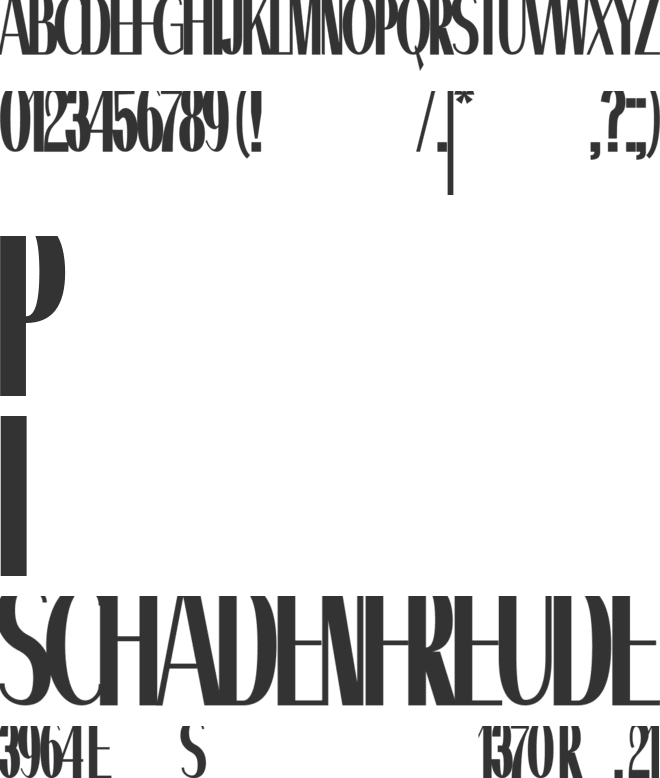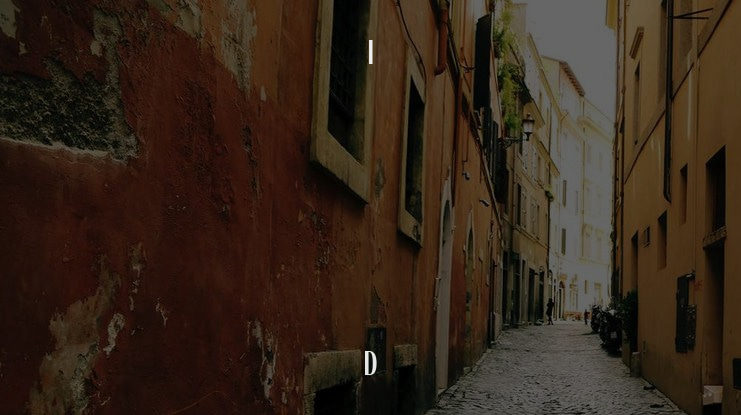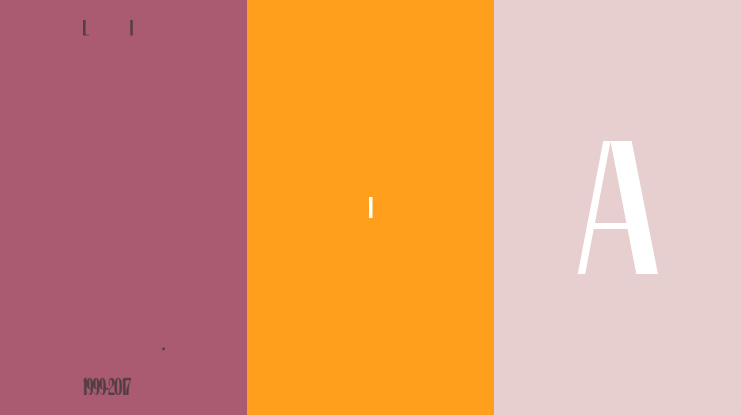
quinb Font Family
🎨 Font Name: Quinb by Minimalist Art Studio
🎨 Font Description: Quinb is a tall, modern sans-serif with minimalist flair and over 600 glyphs—ideal for fashion-forward branding and editorial design.
✔ Complete Latin set + multilingual diacritics
✔ Alternates, stylistic sets & ligatures
✔ Numbers, small caps, and extended punctuation
✔ Bonus italics and family styles